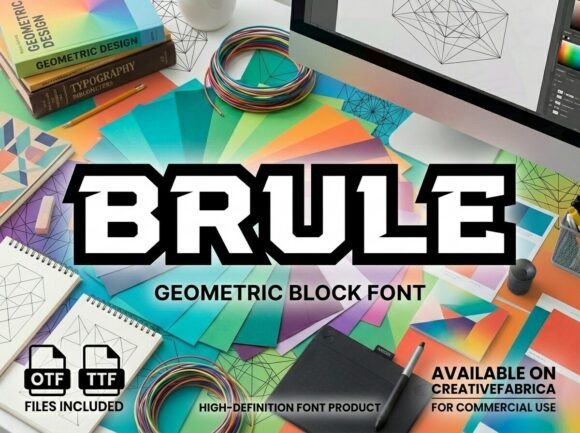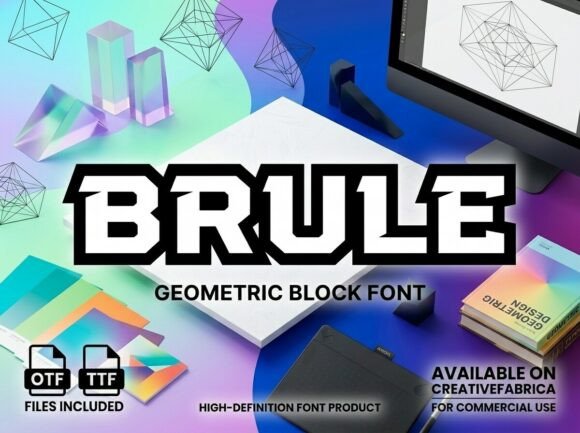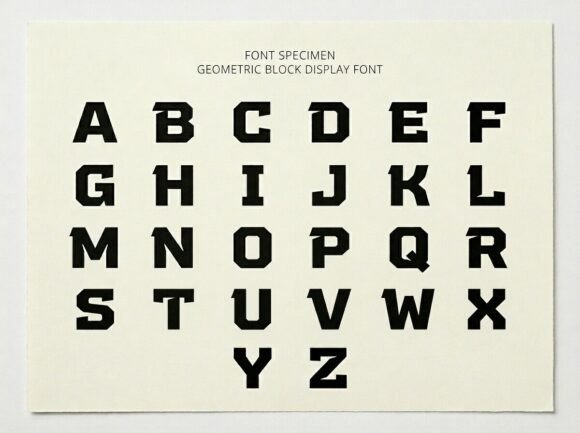
The Mighty Brule Font: A Designer’s Dream Come True
I still remember the design project that led me to discover the incredible Brule font. I was working on a branding project for an e-sports team, and I needed a font that would convey a sense of strength, power, and modernity. After hours of searching, I stumbled upon Brule, and it was love at first sight. The ultra-wide, blocky letterforms with rhythmic, sharp-angled cutouts and a heavy structural weight immediately caught my attention. It was as if I had found the perfect match for my design needs.
- ✅ Unique and commanding presence: Brule’s distinctive design makes it perfect for grabbing attention and making a statement.
- ✅ Versatility: This font can be used for a wide range of projects, from e-sports team identities to industrial design logos and high-performance gear labels.
- ✅ High-visibility: Brule’s bold and blocky letterforms ensure that your message will be seen and remembered.
- ⚠️ Legibility at small sizes: Brule’s bold design can be overwhelming at small font sizes, so it’s best to use it at larger sizes to maximize its impact.
- ⚠️ Limited use in body text: Due to its bold and blocky nature, Brule is not suitable for long-form body text. Instead, use it for headings and titles.
The Backstory Behind Brule
Brule was designed with the intention of capturing a “mighty-and-mechanical” soul. The font’s creator wanted to bridge the gap between vintage collegiate lettering and modern tech-driven branding. The result is a font that is both nostalgic and forward-thinking, making it perfect for a wide range of design projects.
| Font Name | Brule Font |
| Author | Creativeguru |
| What is Brule font best used for? | Brule is best used for projects that require a strong and commanding presence, such as e-sports team identities, industrial design logos, and high-performance gear labels. |
| Is Brule suitable for body text? | No, Brule is not suitable for long-form body text due to its bold and blocky nature. It’s best used for headings and titles. |